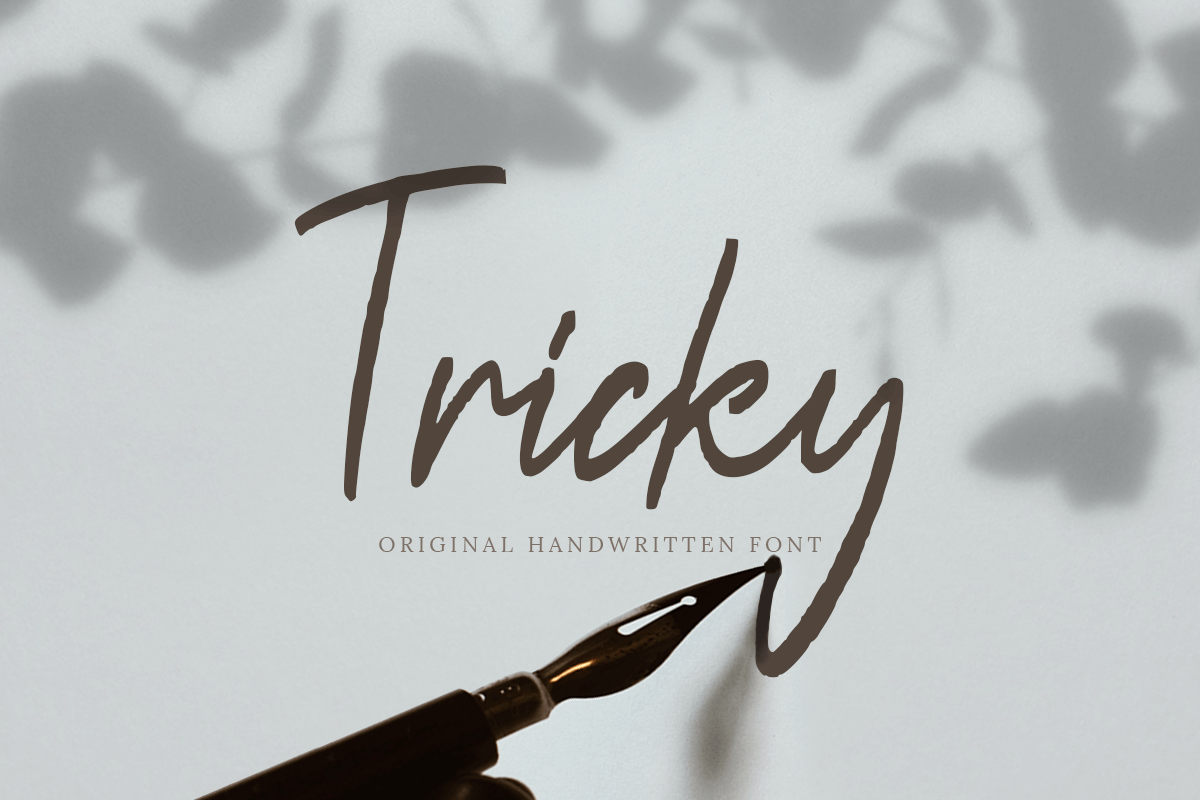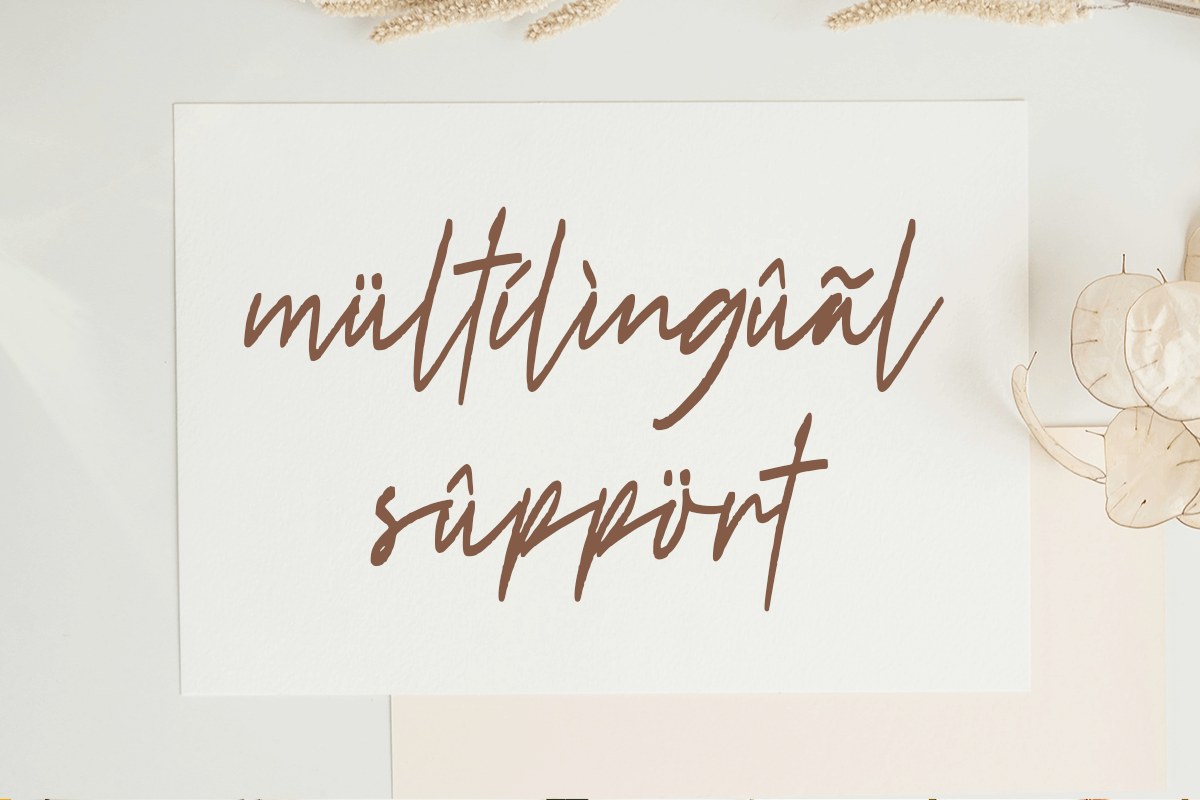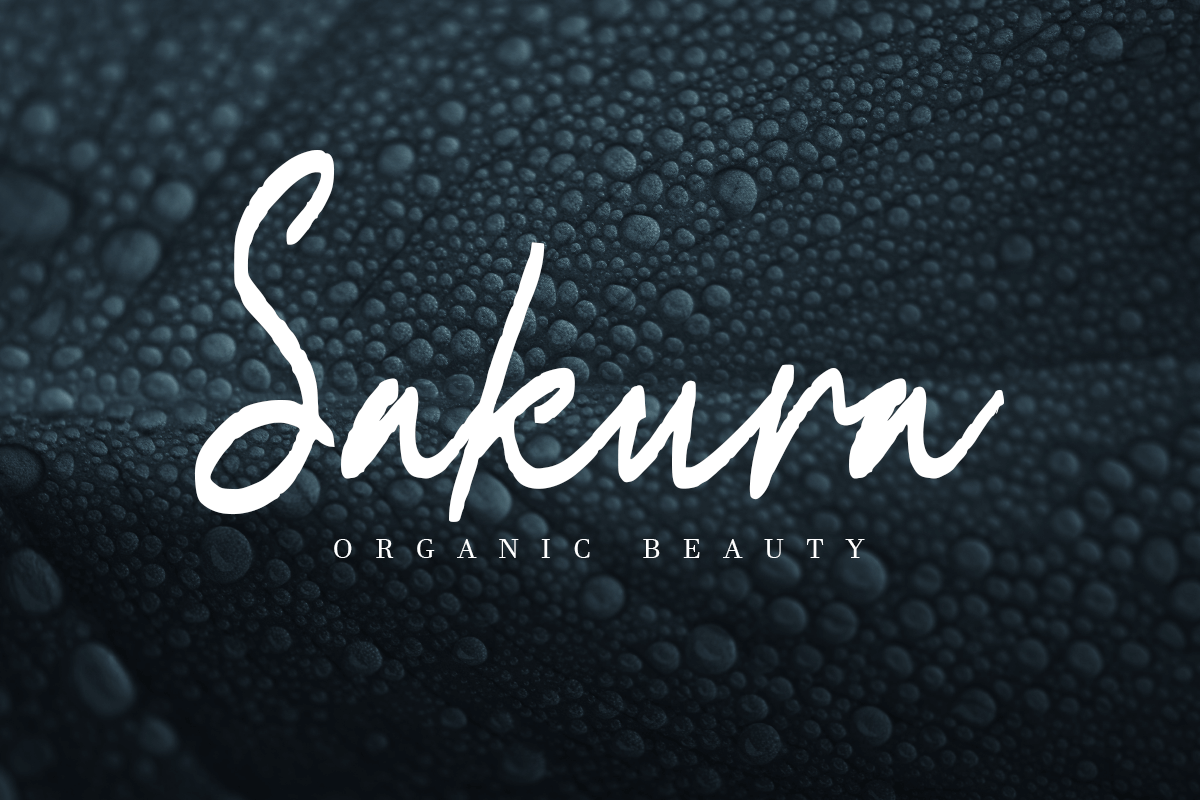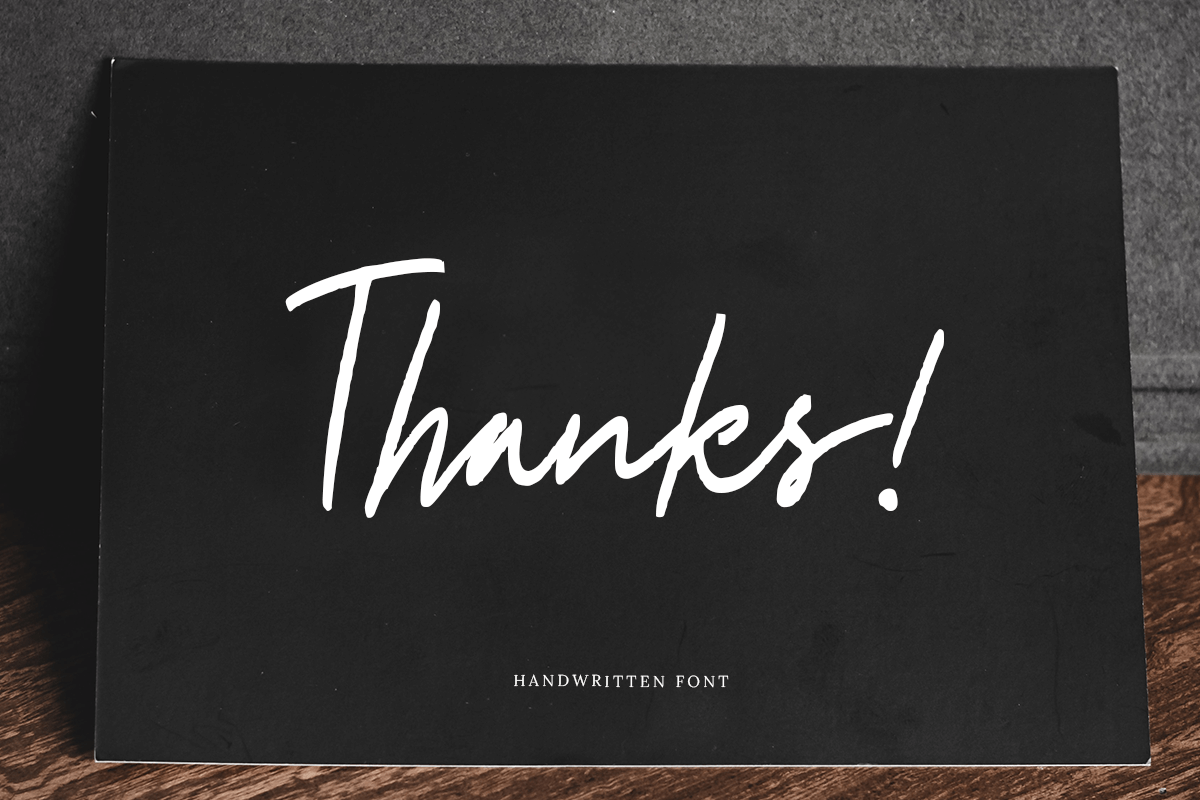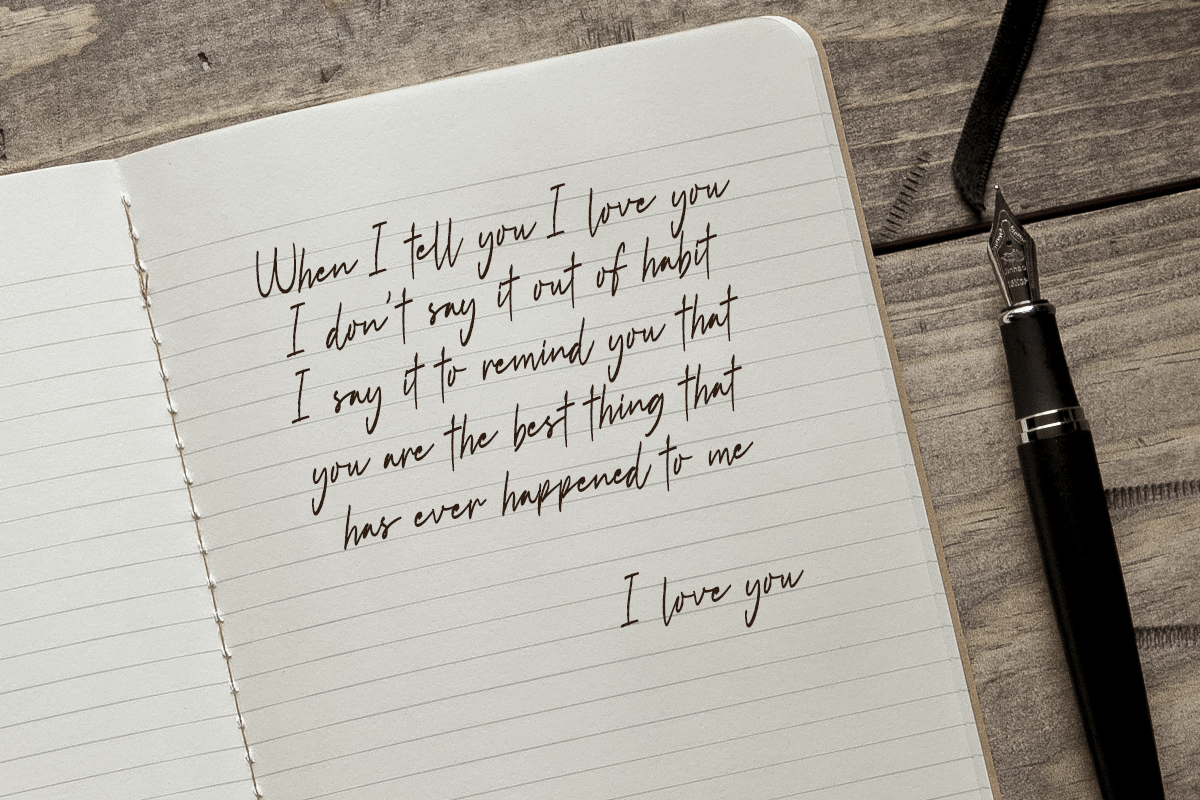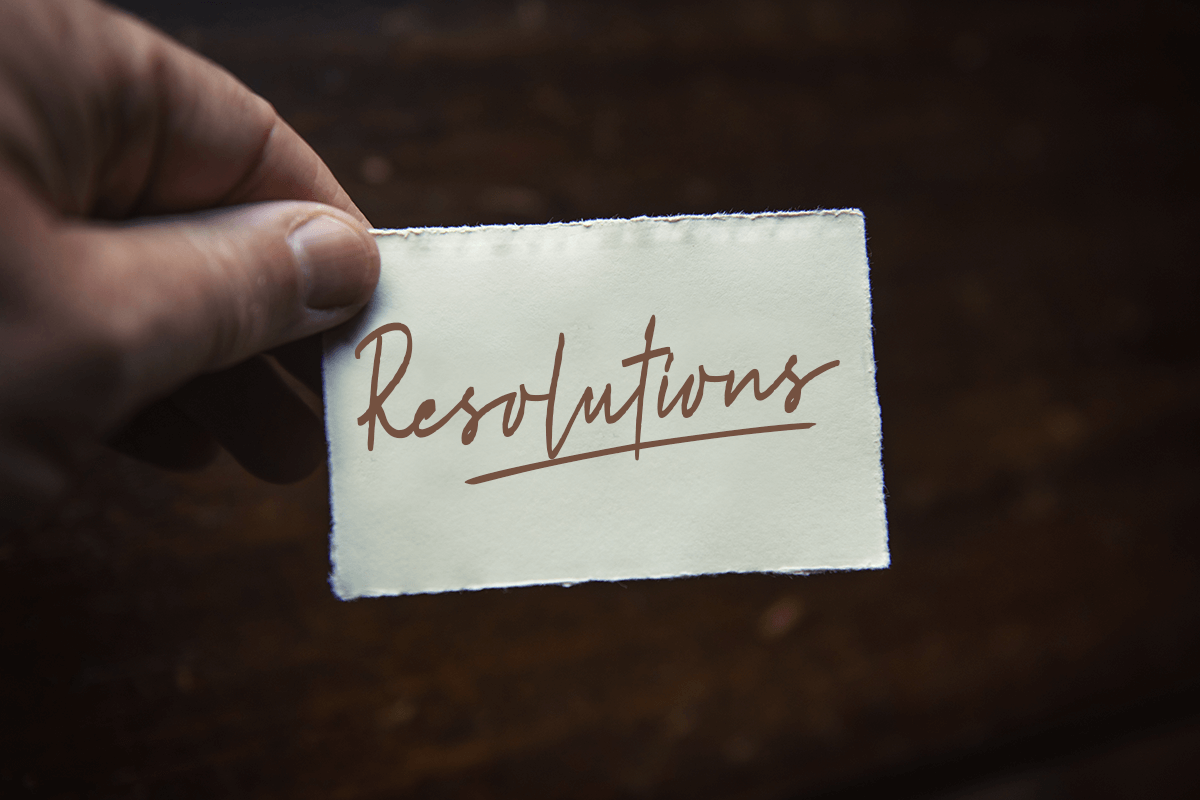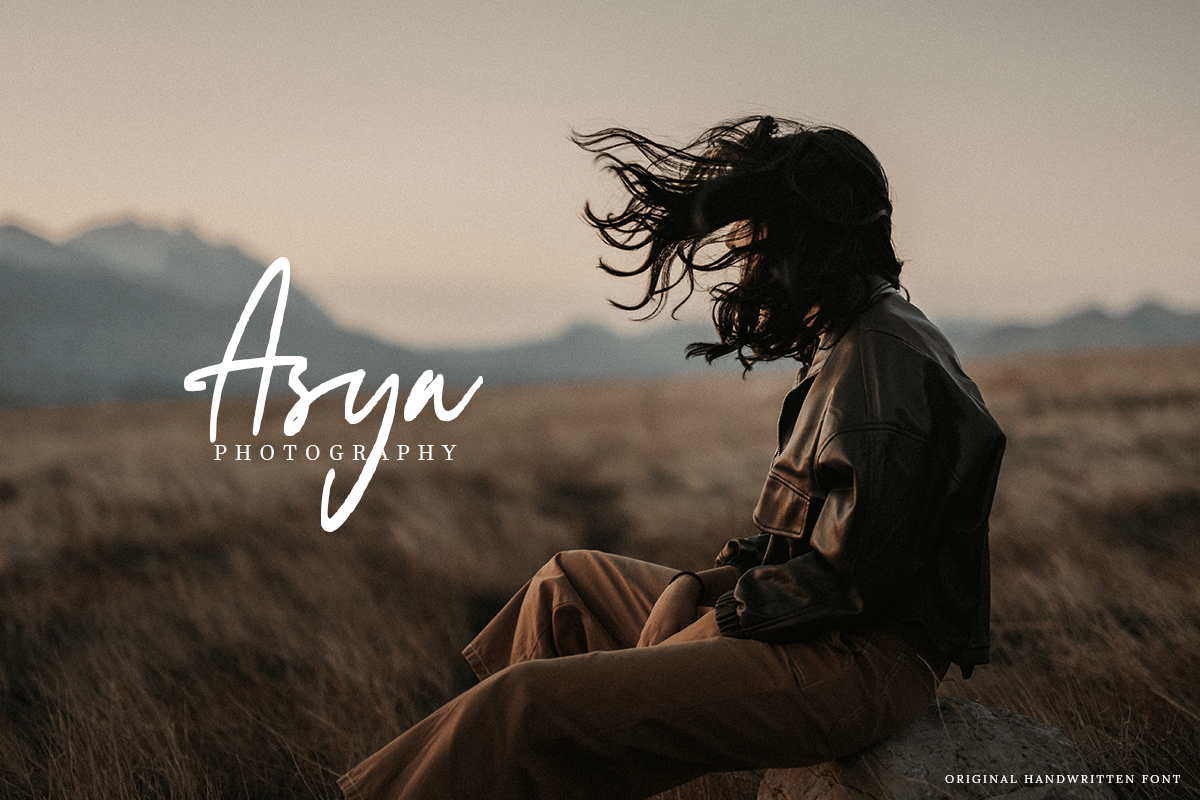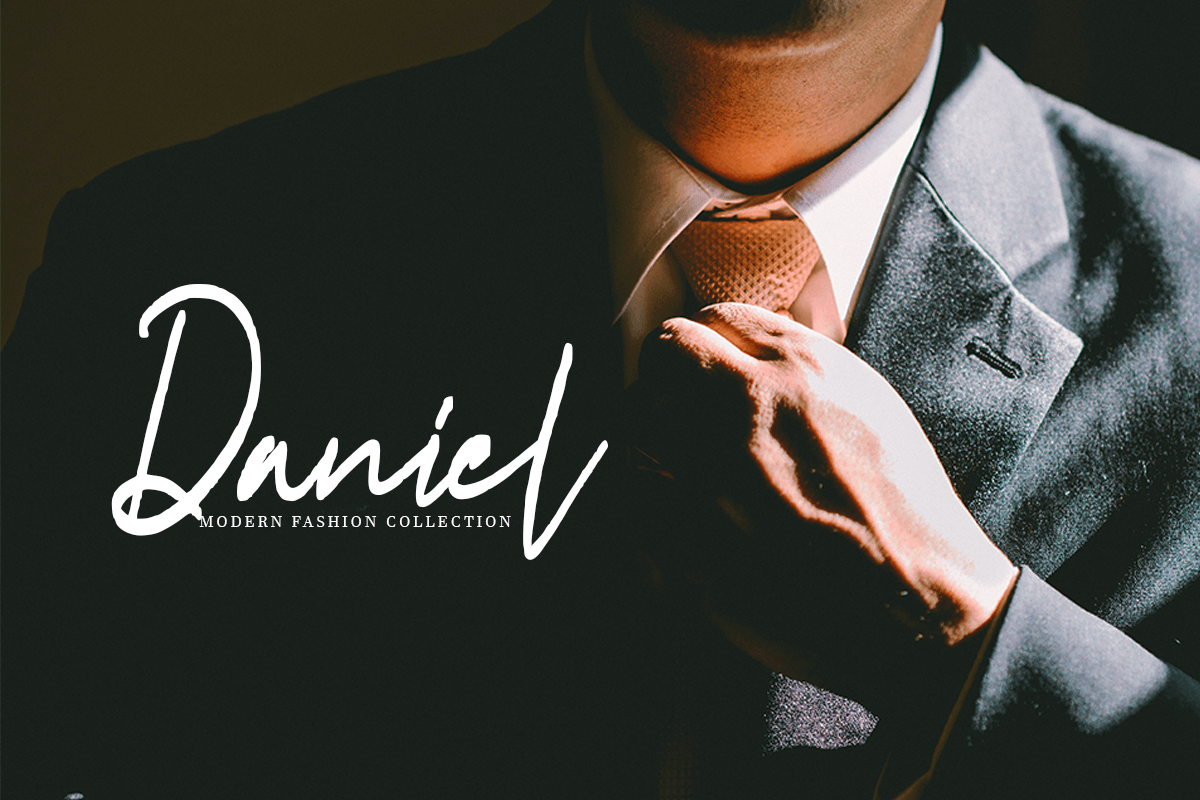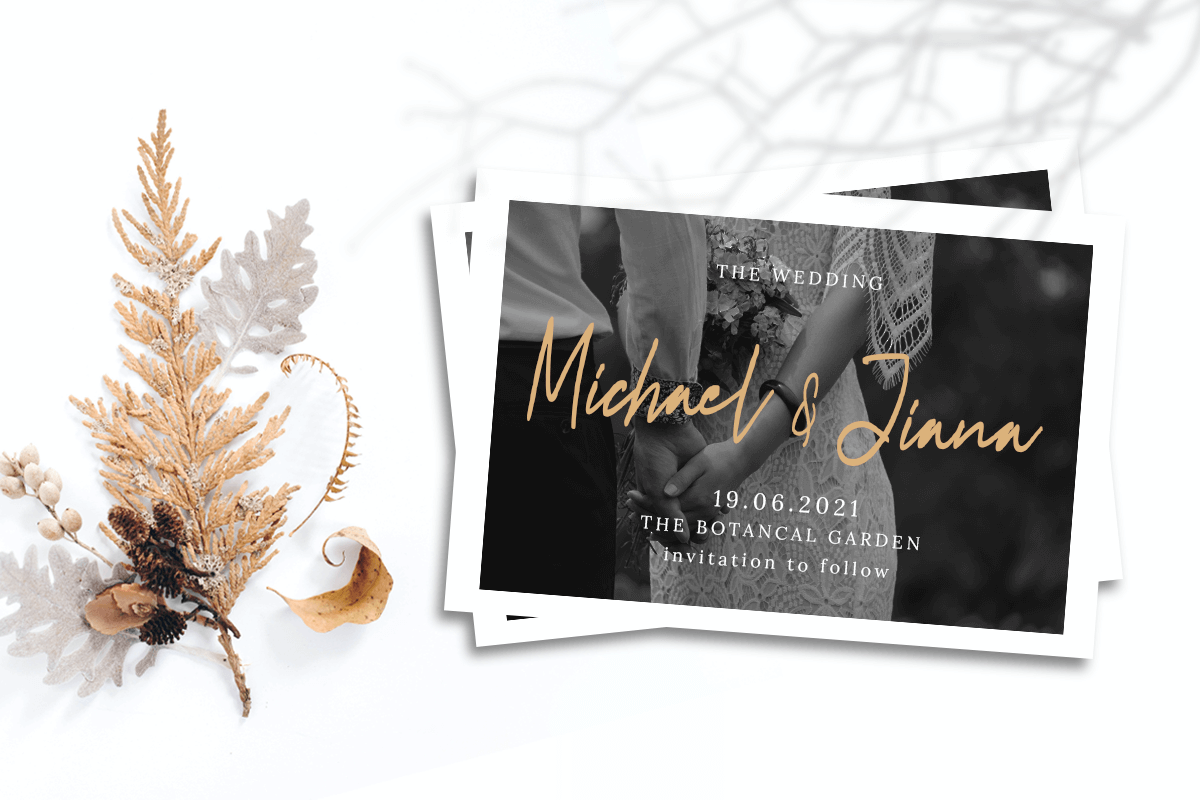
Tricky
-Original Handwritten Font
Tricky
Tricky is A Original Handwritten Font with cute and beauty style and so charming. This font specially crafted for your branding, quotes design projects or cute logo, unique, modern for any designs such as print, merchandise, and so many more with easy to use but unique results are so playful.
Enjoy to Design any your needs with cute and playful feel.